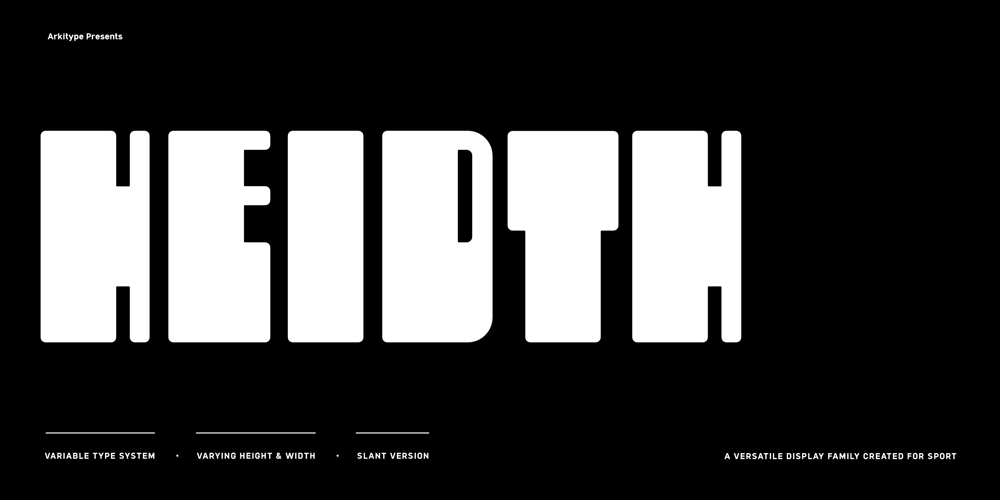
Heidth Variable Font Family was designed by Andrew Footit and published by Arkitype. Heidth Variable contains 2 styles and family package options. Heidth Variable has 2 styles, regular and slanted with varying extremes in width and height. It is designed as a display font for fun typographic use. Heidth is perfect for use in branding, posters, print campaigns packaging or what ever you need to have fun expressive typography. Wide or high, Heidth Variable is extremely versatile and works for any artwork layout and orientation.Please note: Being a Variable font, you will need software that supports variable fonts.i.e Adobe Illustrator, Photoshop etc.